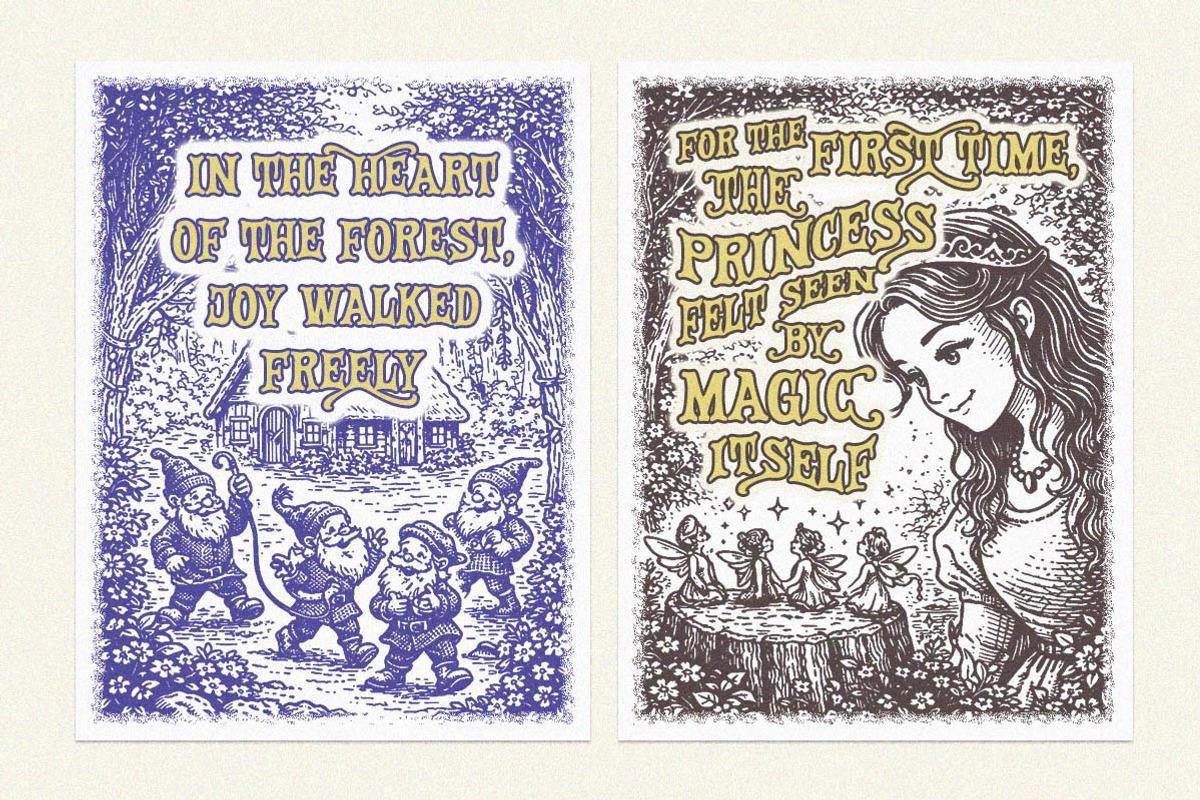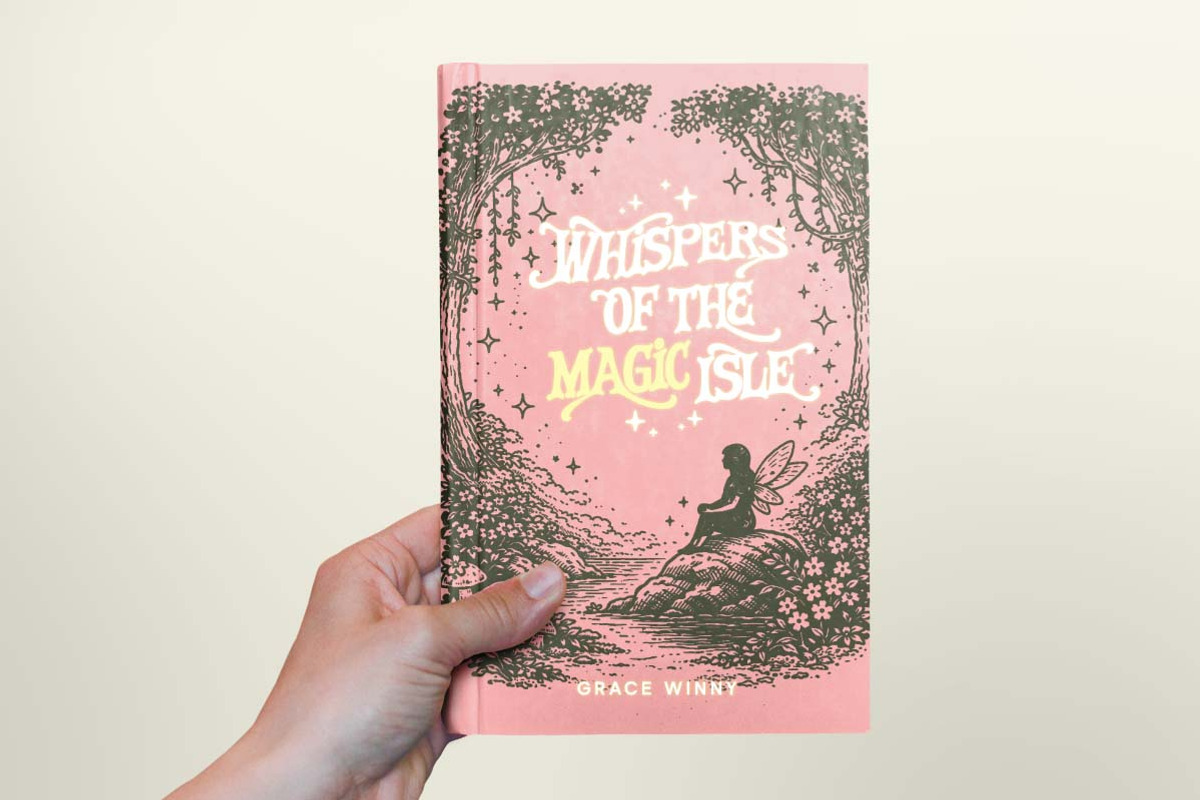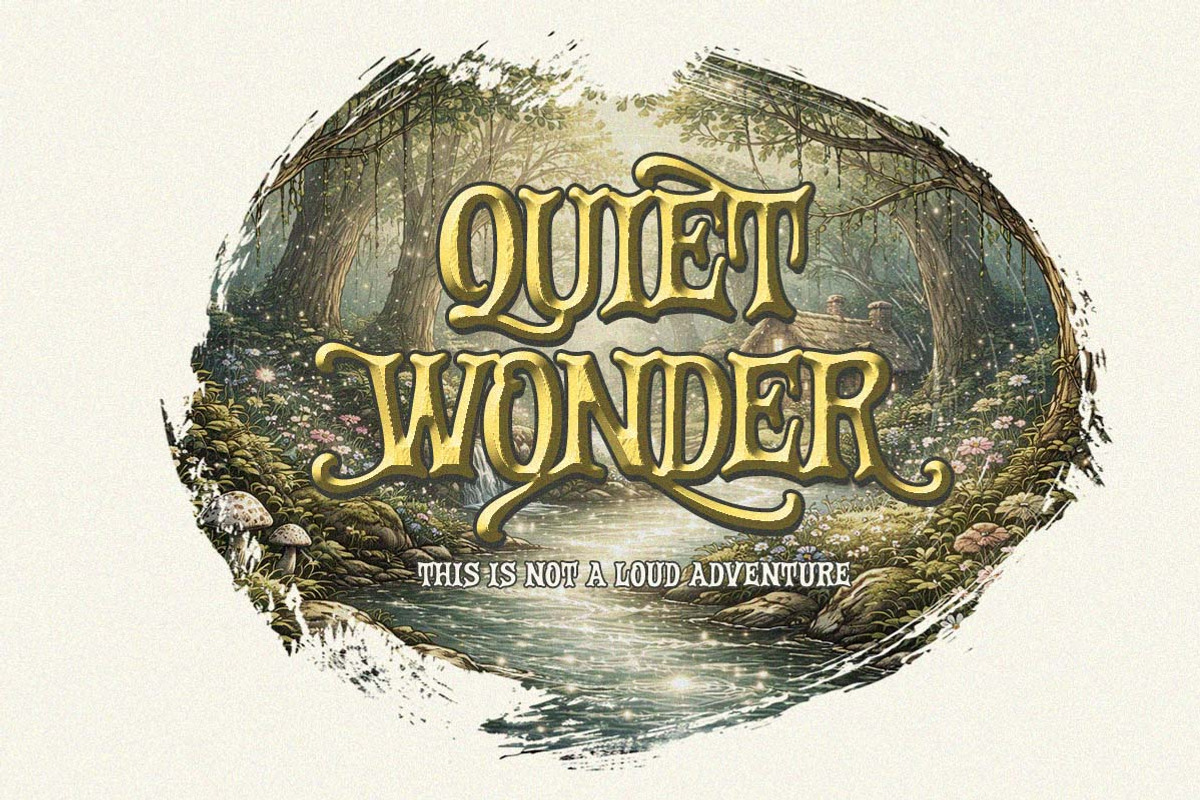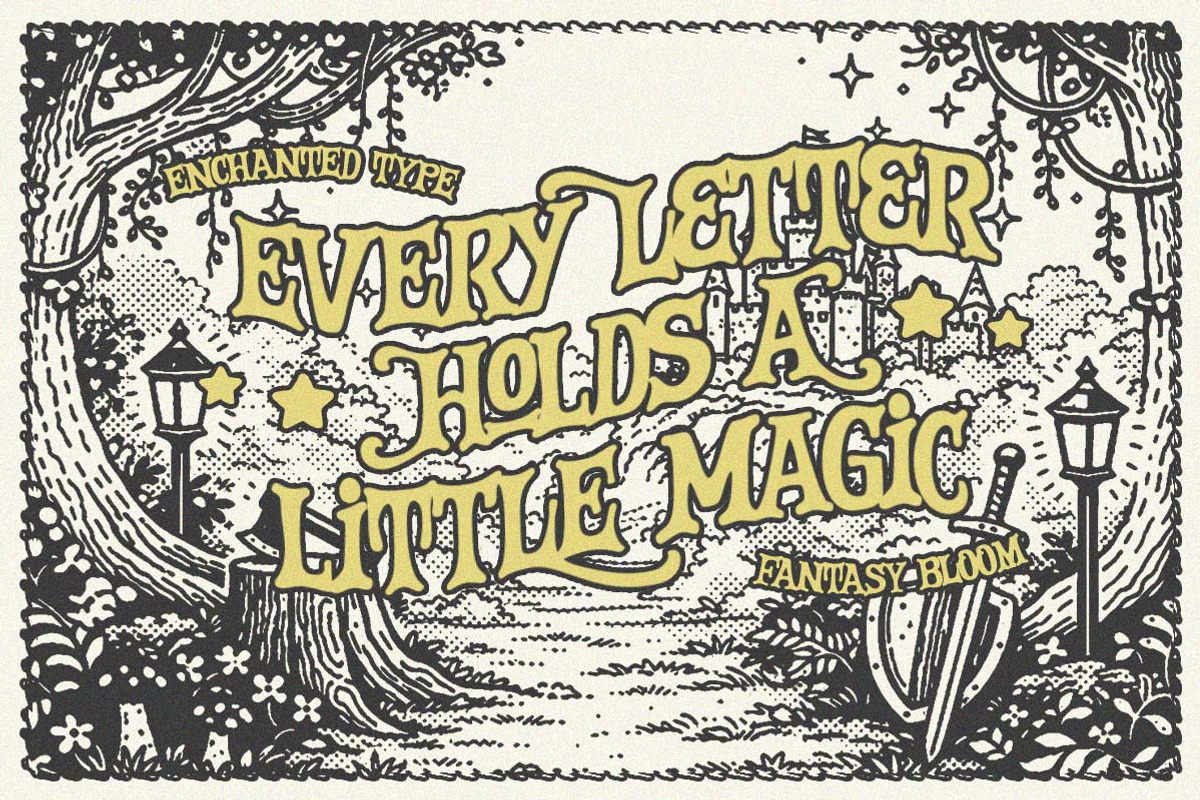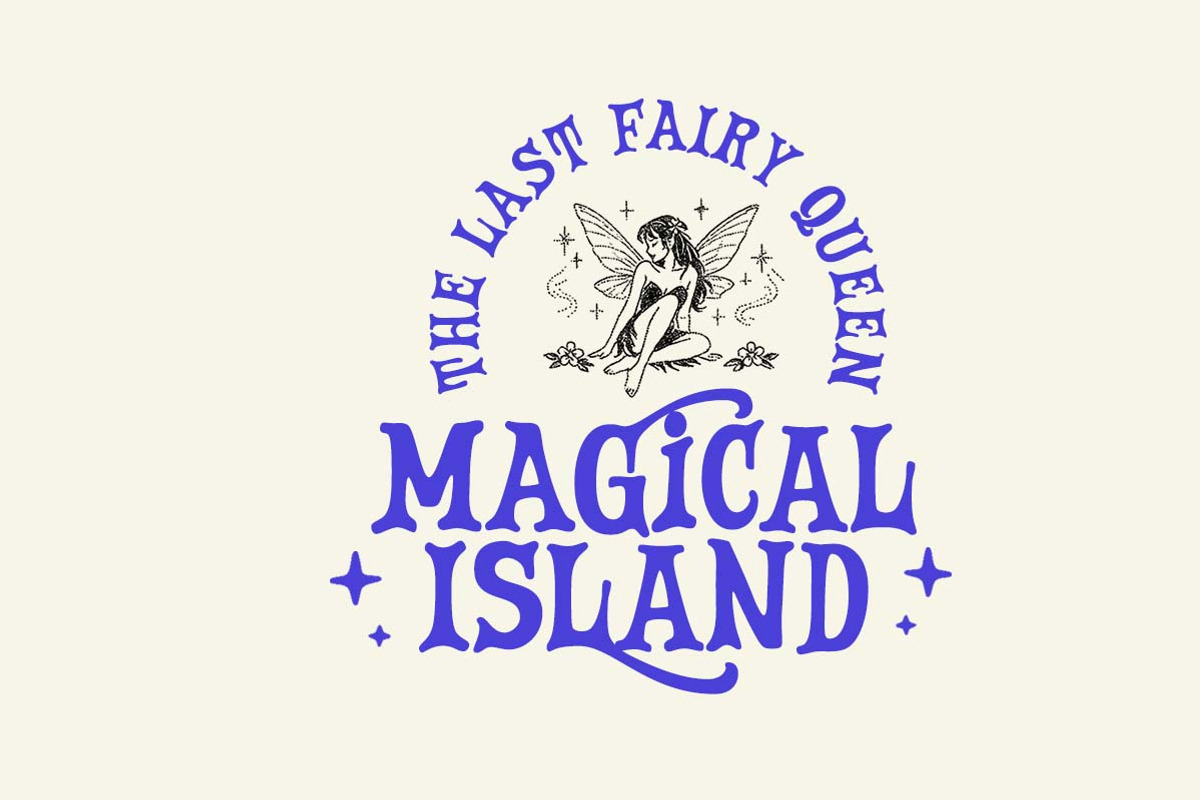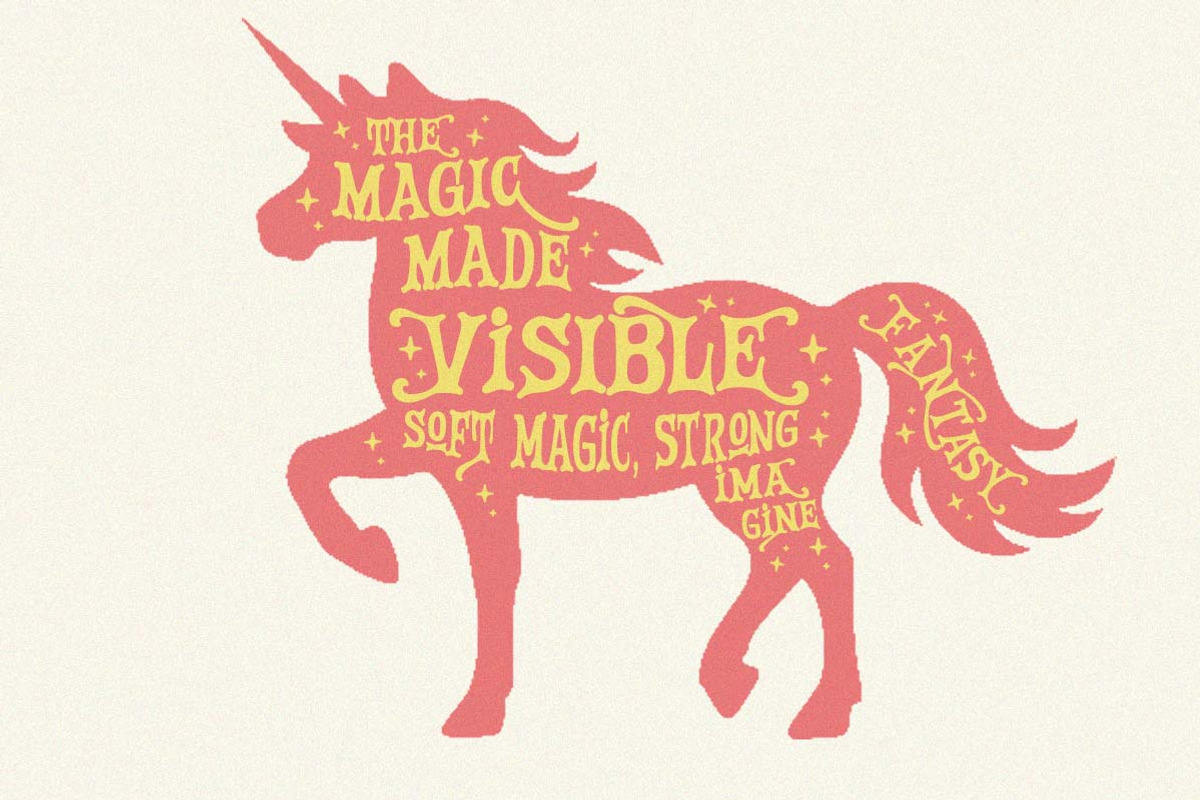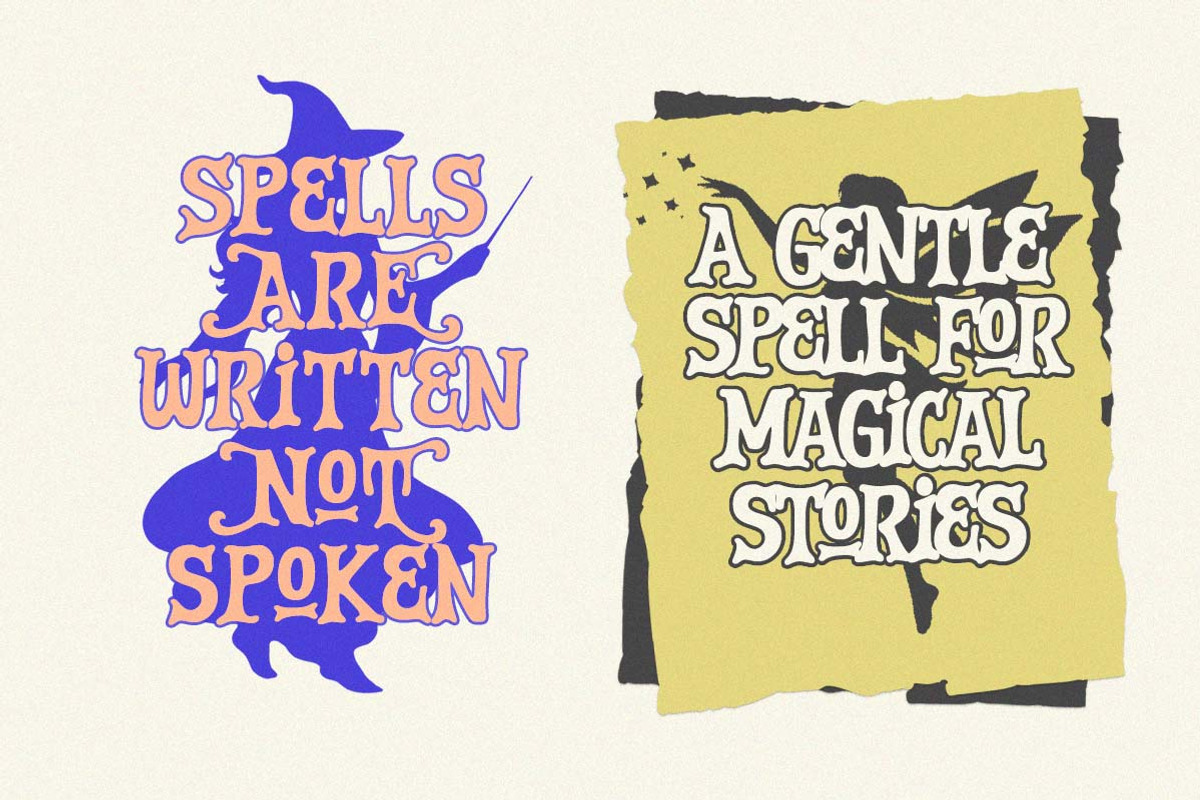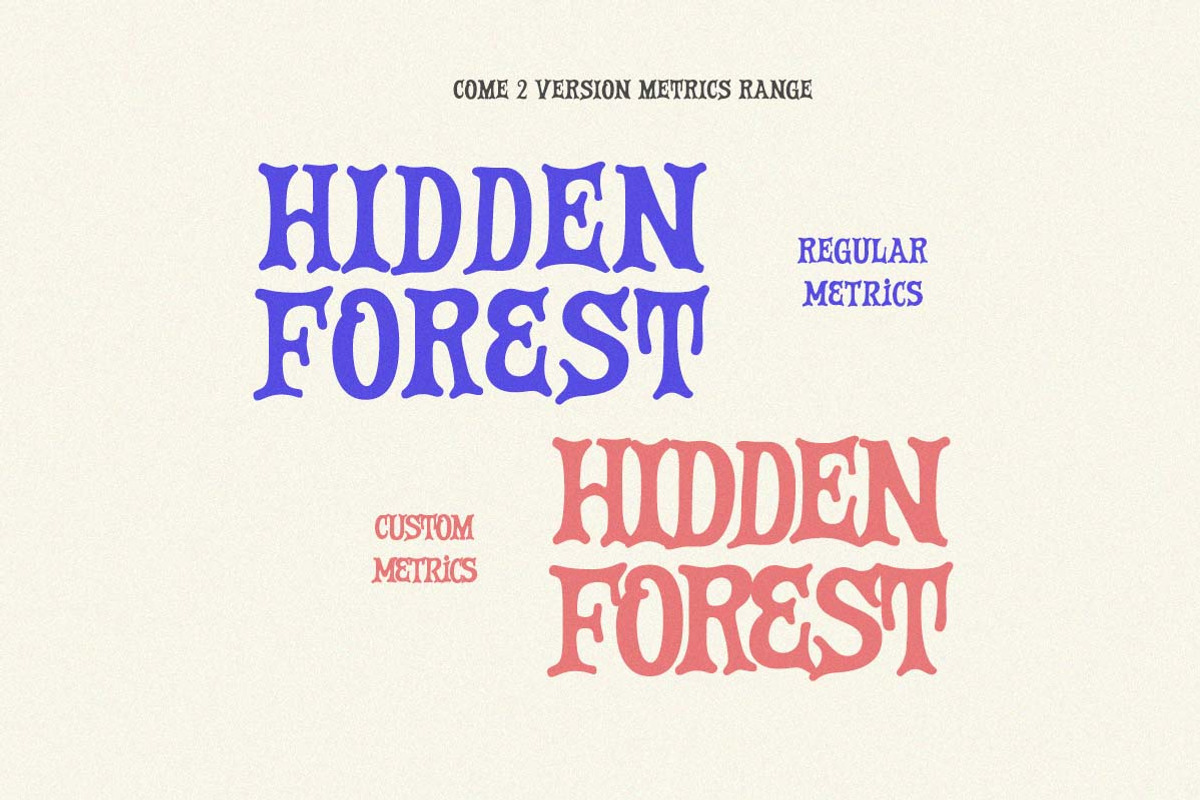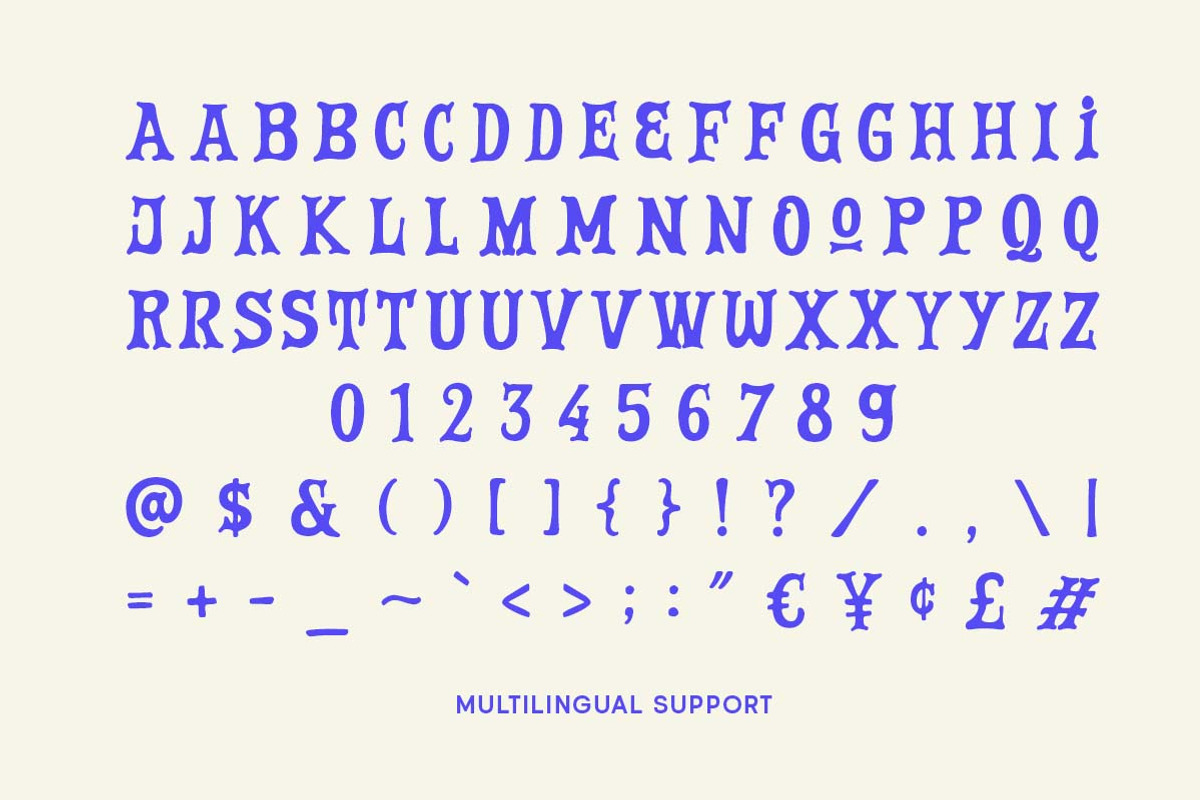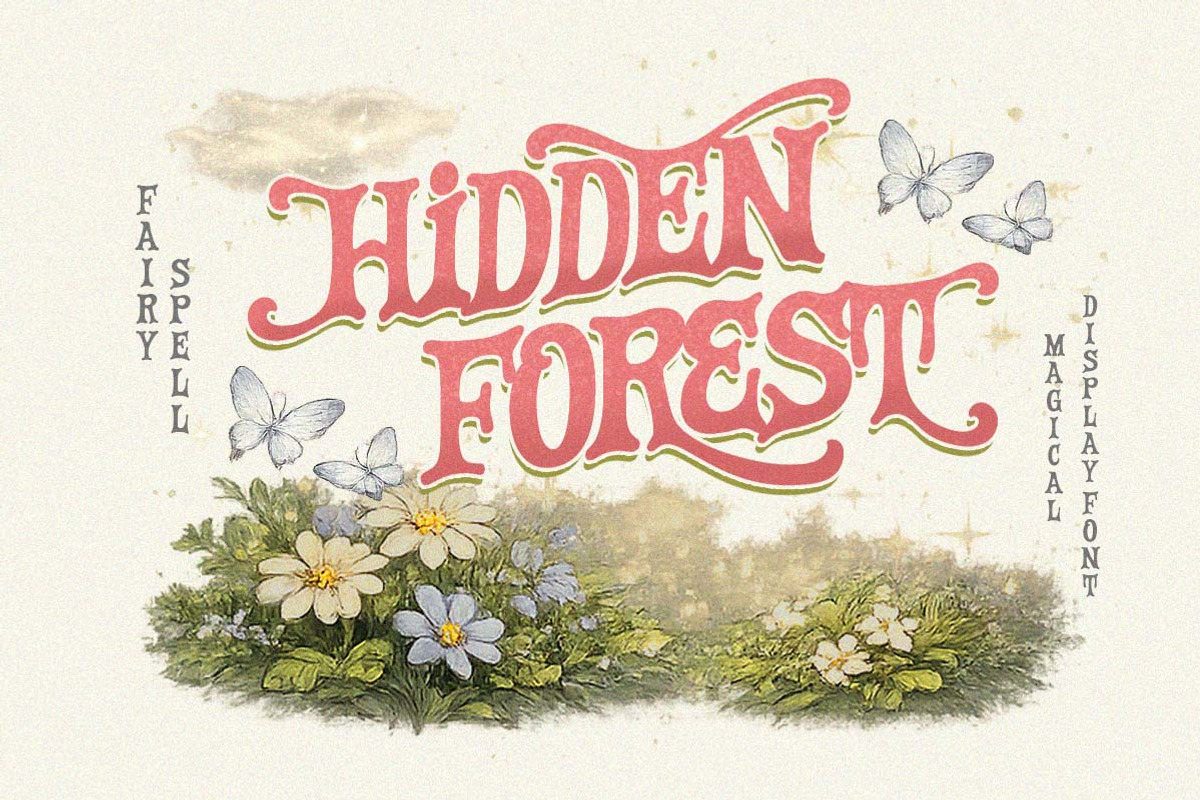
Fairy Spell Magical Display Font
Fairy Spell is a magical display font with soft curves, playful serifs, and whimsical letter shapes inspired by storybook fantasy. The characters feel bold yet friendly, with decorative details that add charm without losing readability. It works beautifully for titles, posters, book covers, packaging text, kids visuals, quotes, invitations, and creative branding that needs a touch of magic and fun.